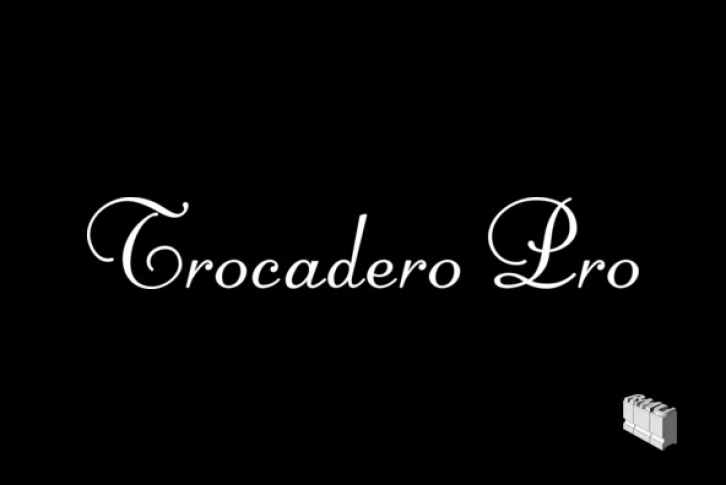
In 1927 Albert Auspurg cut Trocadero for the Trennert foundry in Hamburg. This new version is not a mere digitalization, but many letterforms were altered and updated, and missing links in the complete alphabet had been drawn afresh. Out came a beautiful cursive font with a certain charm of its own which covers beside the West European languages also those of Central Europe and Turkish.